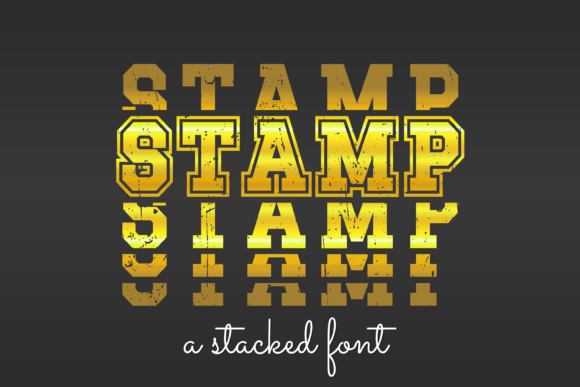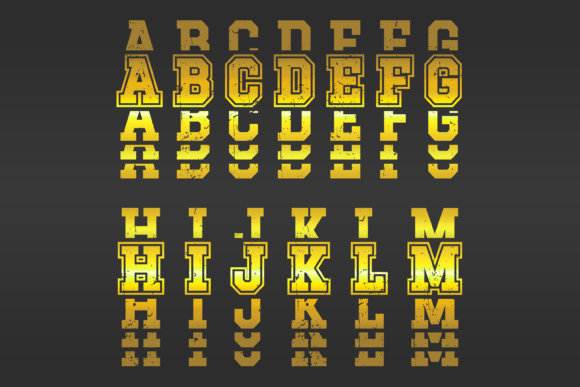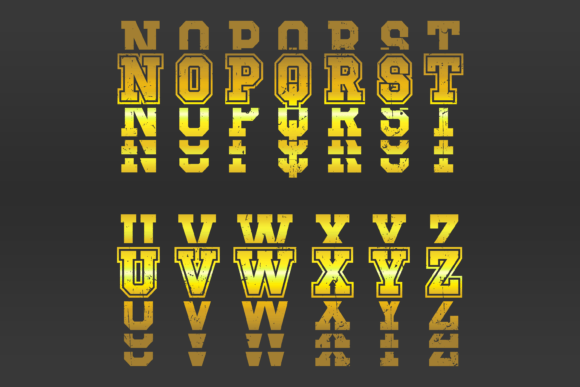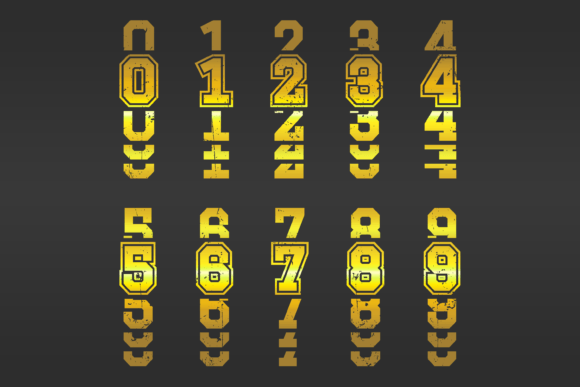
Stamp
Stamp: An Incredibly Cool Font for Creative Designs
Stamp is an incredibly cool font. Whether you use it for custom designs, DIY crafts, or just any creation that requires a lovely touch, this font will be an amazing choice.
Key Features of Stamp
• Cool Design: Offers a unique and eye-catching look suitable for various applications.
• Versatile Application: Ideal for custom designs, DIY projects, and more.
• Lovely Touch: Brings a charming and appealing feel to designs.
• Creative Potential: Perfect for projects that need a distinctive typographic element.
Ideal Uses for Stamp
Stamp’s unique characteristics make it particularly well-suited for:
When incorporating Stamp into your designs, consider these tips:
• Use for headlines or short phrases to showcase its cool and unique style.
• Consider pairing with simpler fonts for body text to create contrast.
• Utilize its lovely touch to create designs that stand out and capture attention.
Stamp is an excellent choice for designers and creators looking to add a cool and unique font to their typographic toolkit. Its ability to bring a lovely touch to various design projects makes it stand out in the world of typography. Whether you’re working on custom designs, creating DIY crafts, or developing content that requires a distinctive look, Stamp offers the perfect blend of coolness and versatility.
Furthermore, Stamp’s unique design allows it to shine in various contexts where a creative and eye-catching look is desired. From branding elements to artistic posters, this font can elevate your projects with its distinctive style. Its cool yet readable appearance works particularly well in designs that aim to make a strong visual impact and leave a lasting impression.
In conclusion, Stamp is a font that truly captures the essence of cool, creative design in modern typography. Its versatility across different applications showcases its adaptability to various creative needs. For those looking to add a touch of unique charm to their work, Stamp can enhance themed creations with its distinctive style. It’s the perfect choice for designers and DIY enthusiasts seeking to make a cool, memorable impact across a wide range of creative projects.